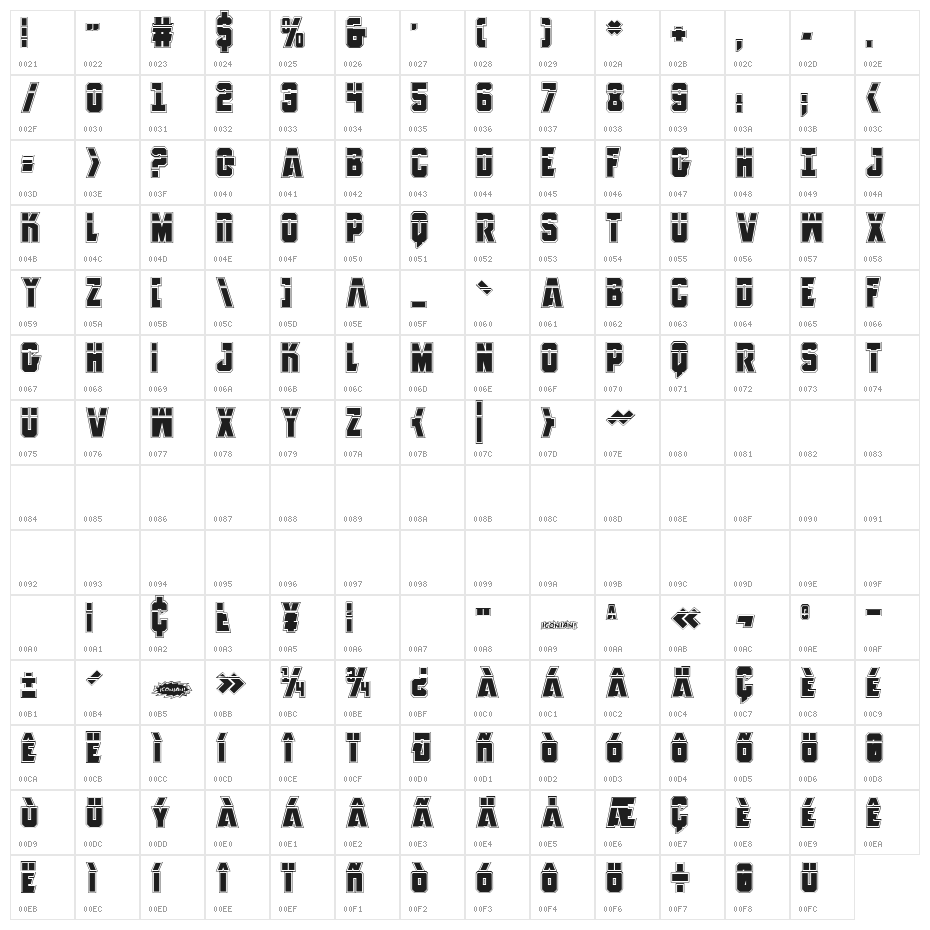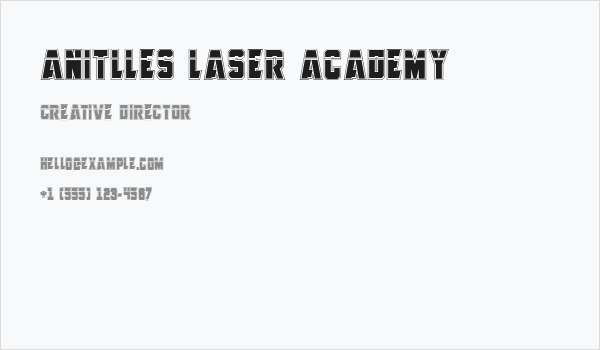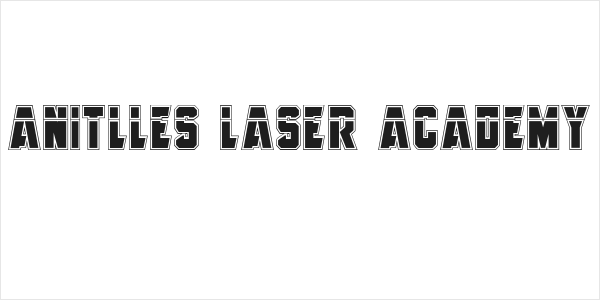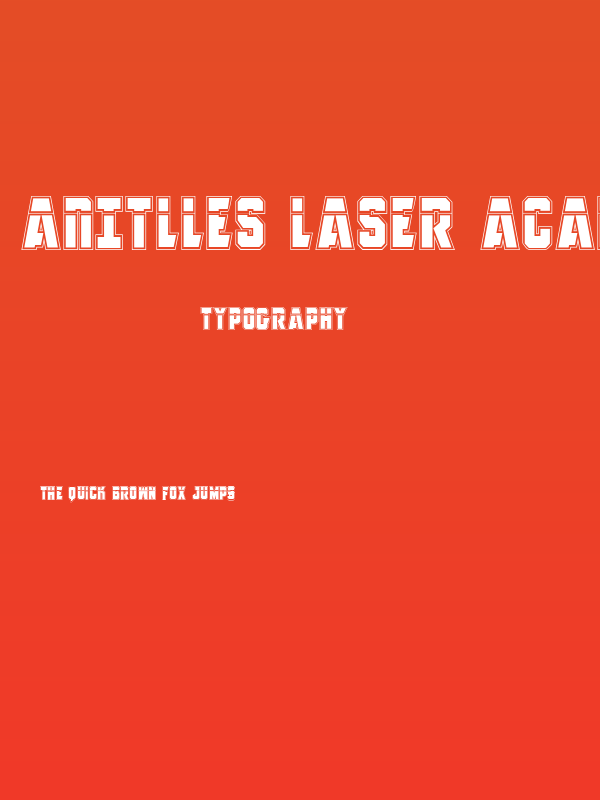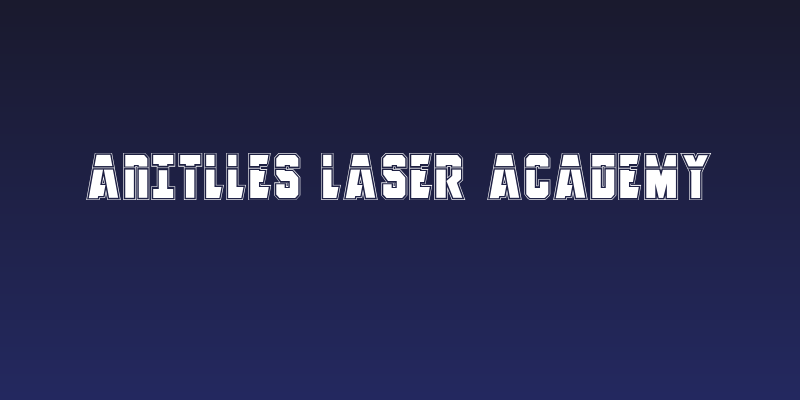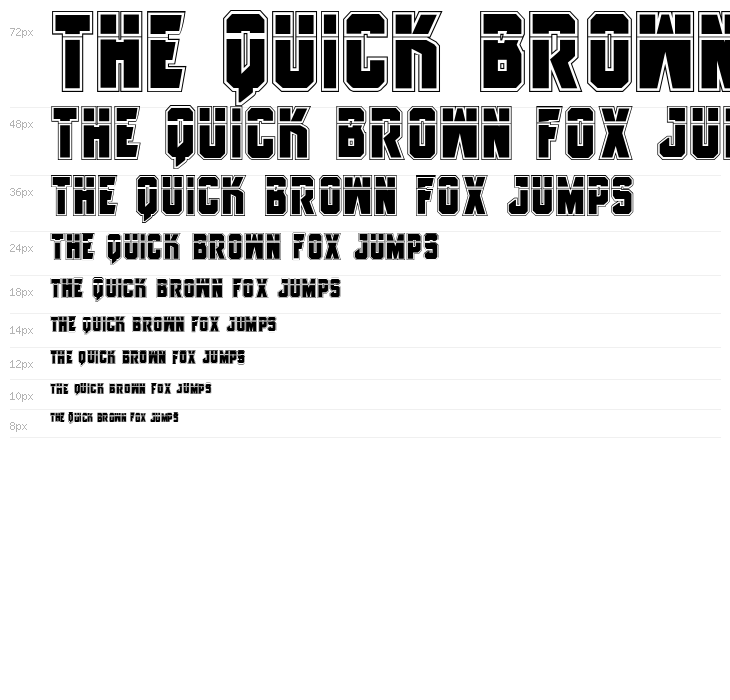
Anitlles Laser Academy Font
Anitlles Laser Academy Description
This font features a bold and striking design with a strong geometric structure. Each character is outlined with a thick border, creating a three-dimensional effect that adds depth and emphasis. The uppercase letters are uniform in height, with sharp angles and clean lines that convey a sense of strength and modernity. The numbers and special characters maintain this bold style, ensuring consistency across all elements. The font's distinct appearance makes it ideal for projects that require a commanding and attention-grabbing typeface.
| Proposed Projects | Ideal for posters, logos, sports branding, and any design requiring a bold statement. |